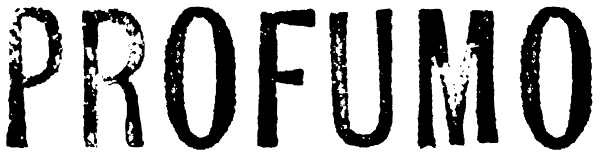
Profumo
Profumo evokes the rubber ‘top secret’ stamps found on files in government vaults and under the beds of double-agents’ mistresses. The font was produced by scanning in inky impressions from vintage rubber letters - dozens of prints were made, and...